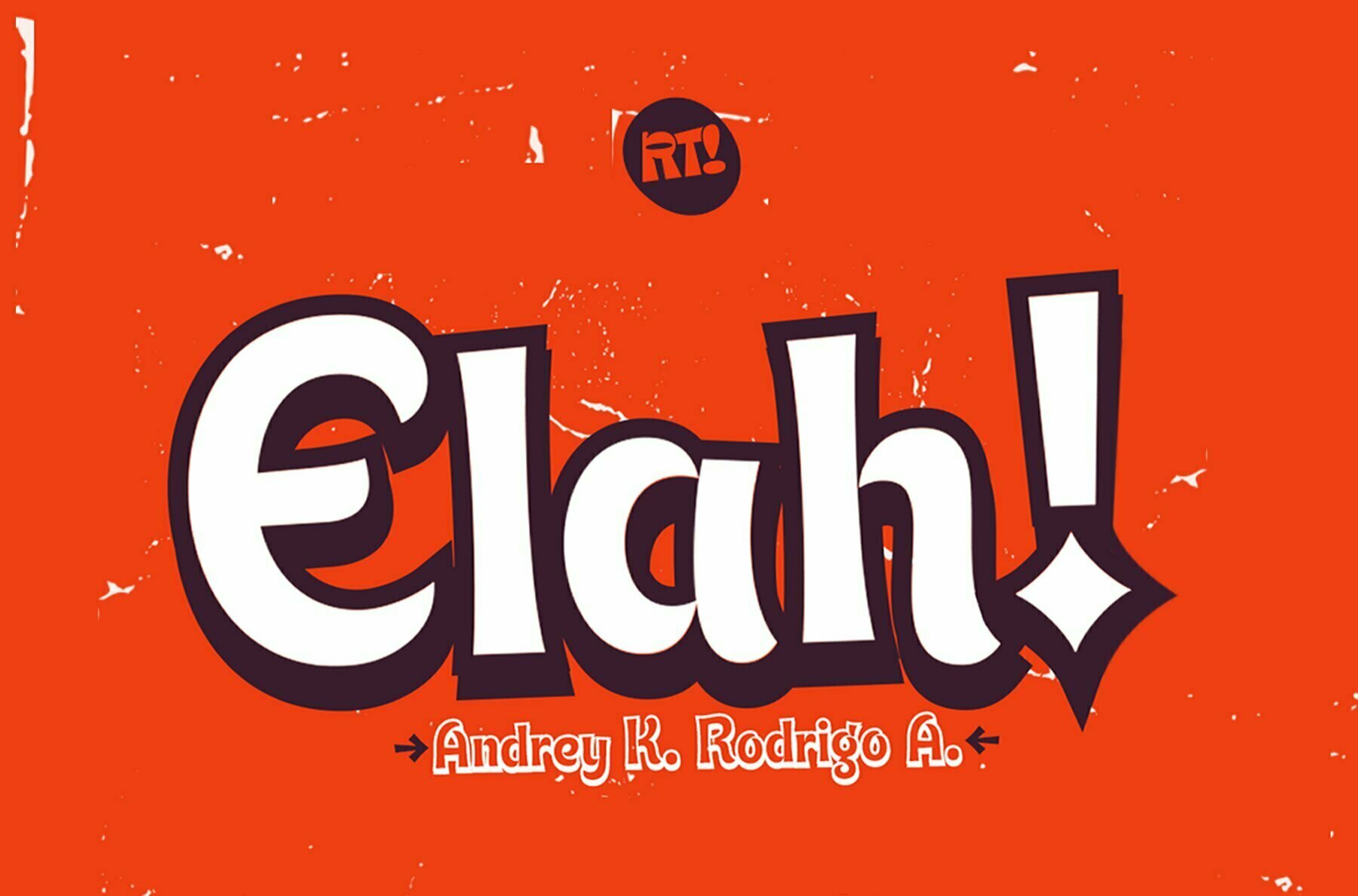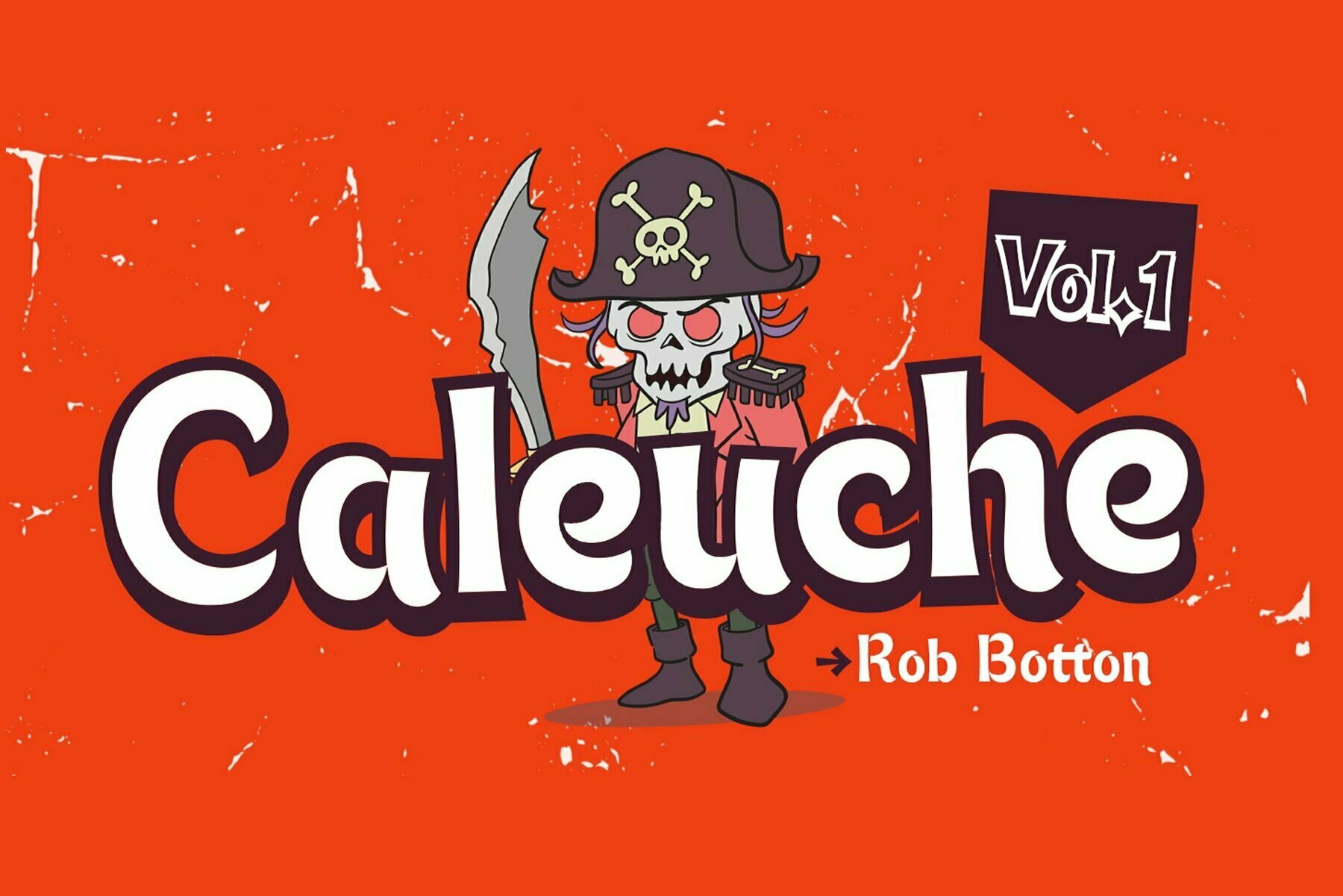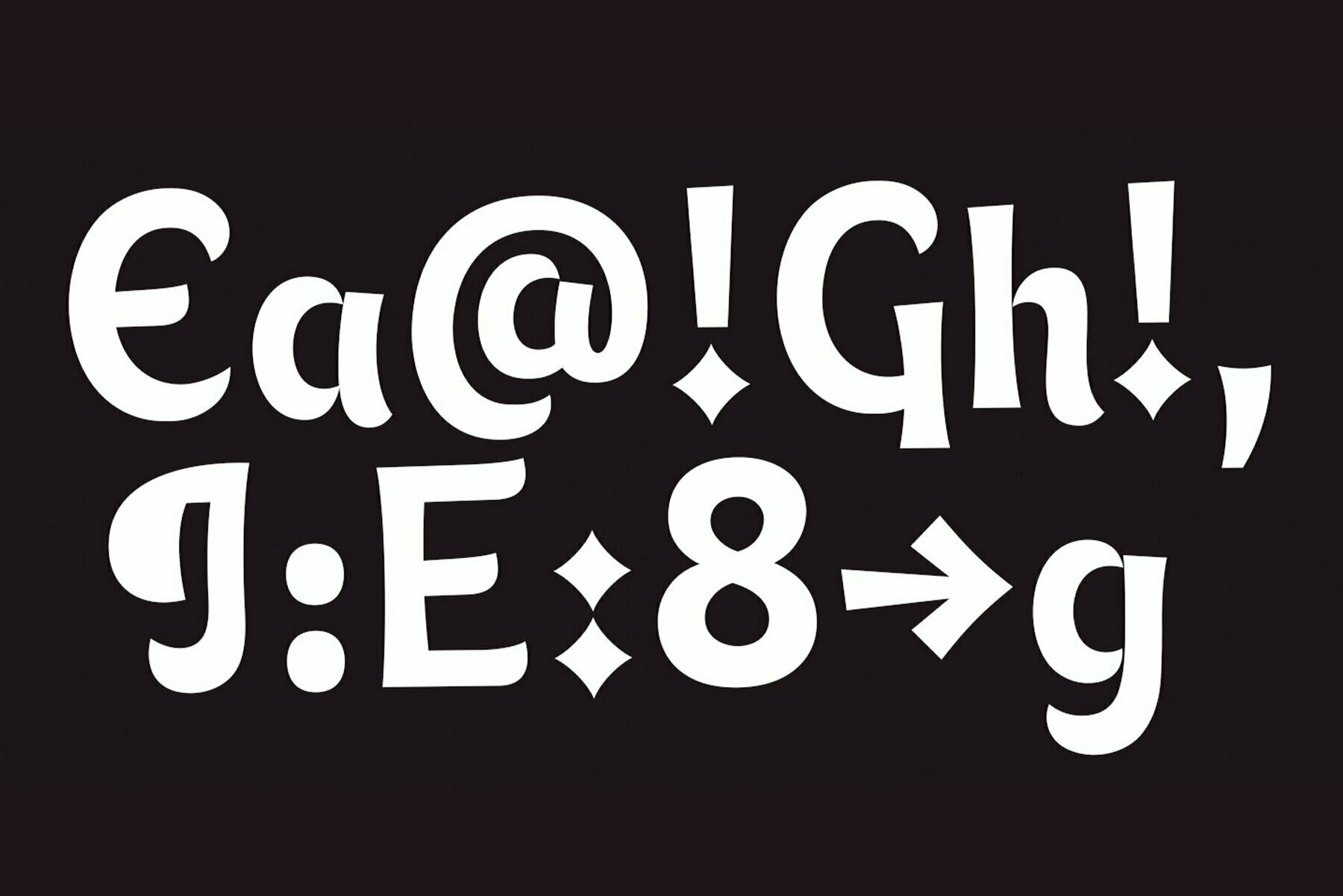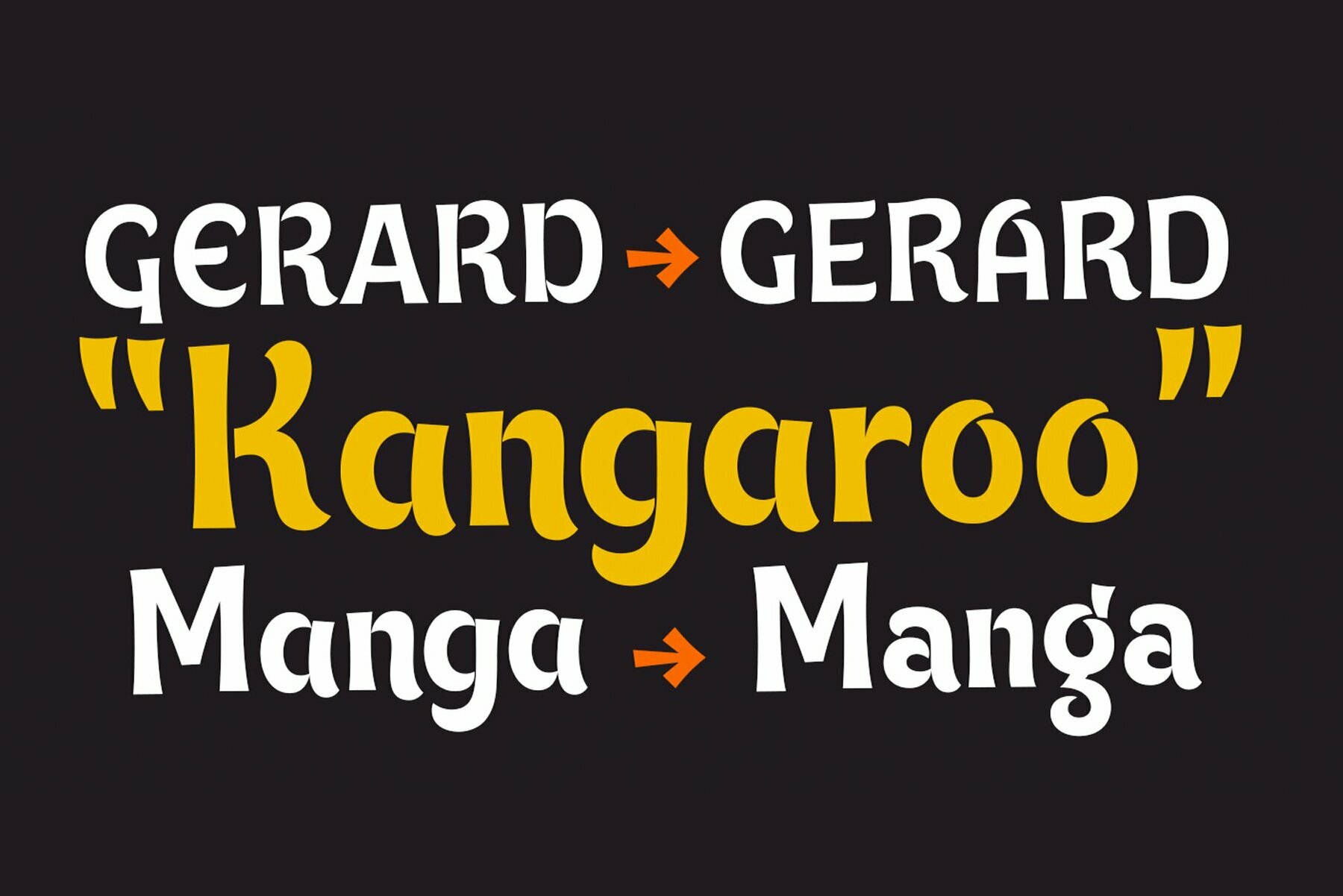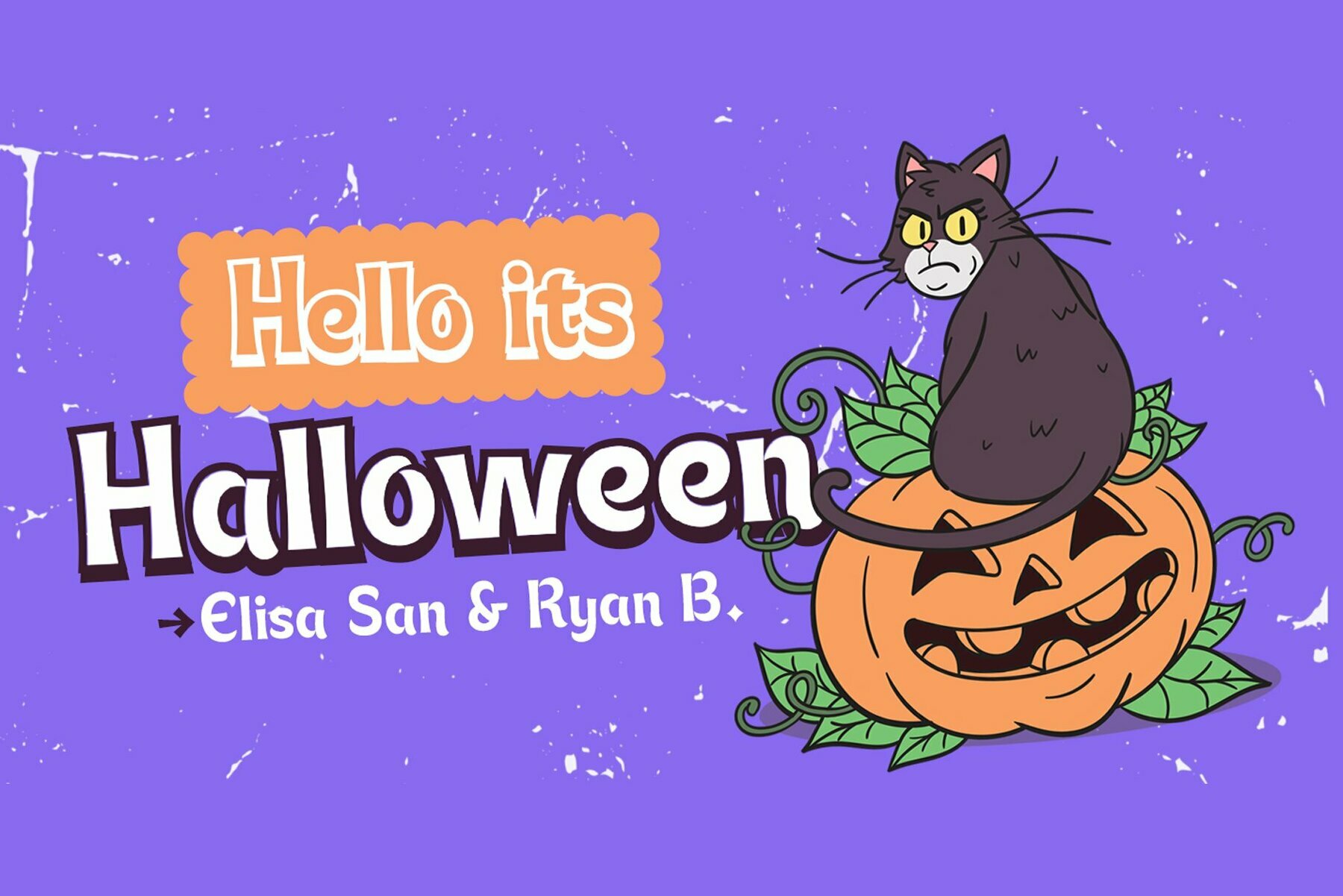
Elah Font
Elah by RodrigoTypo is a versatile typeface family composed of four unique styles crafted specifically for children's literature and fantasy stories. Each style brings a playful and imaginative flair, making it ideal for captivating young readers and adding an enchanting touch to your creative projects.Elah Typeface: Whimsical Font for Creative Tales